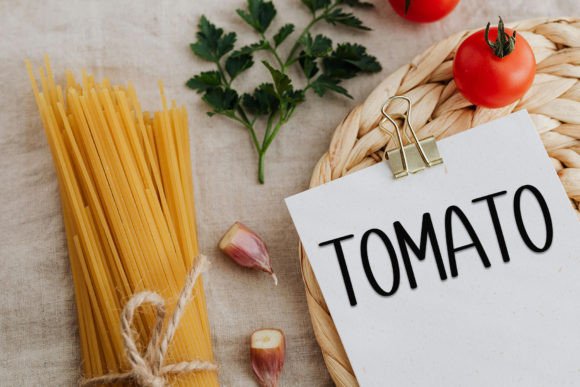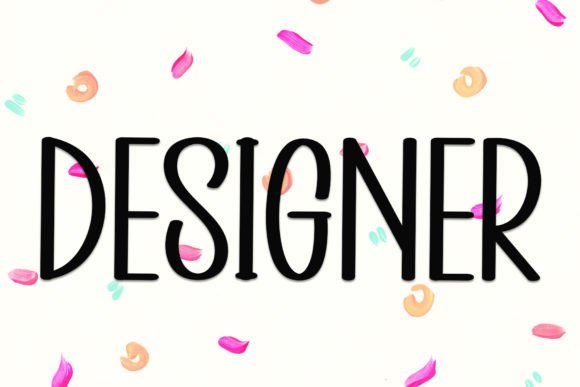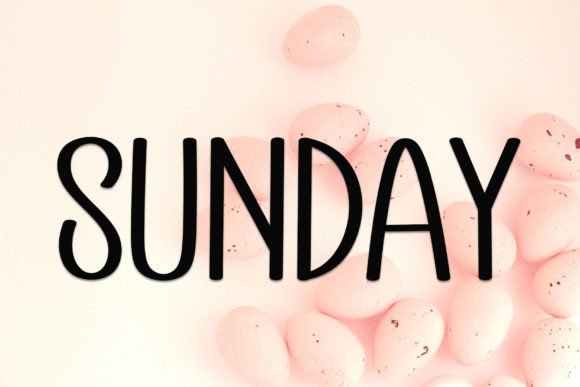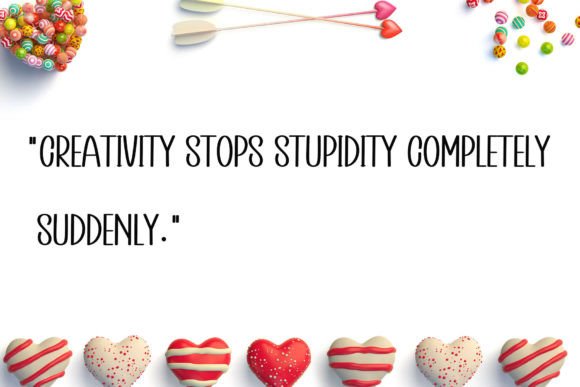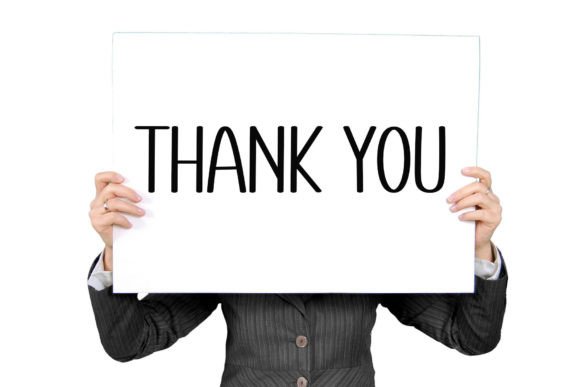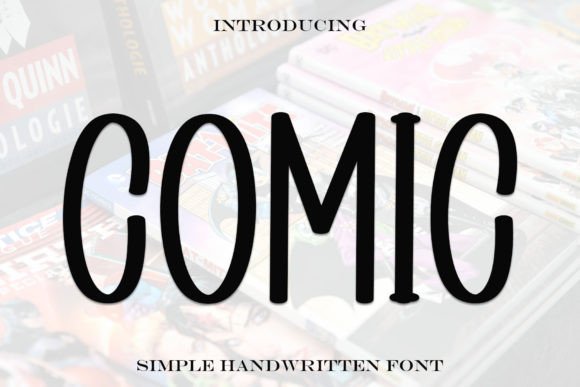
Introducing Comic Font: The Ultimate Holiday Typeface
Are you looking for a font that embodies the spirit of the holiday season? Do you want to add a touch of charm and nostalgia to your designs? Look no further than Comic Font, a festive and happy typeface that’s perfect for greeting cards, gift labels, and holiday-themed projects.
What is Comic Font?
Comic Font is a decorative typeface that’s designed to capture the magic of the holiday season. With its unique flair and decorative elements, this font is sure to bring a cheerful and nostalgic atmosphere to your words. Whether you’re a designer, crafter, or DIY enthusiast, Comic Font is the perfect addition to your font collection.
Key Features of Comic Font
- Festive and Happy Design: Comic Font is designed to evoke the spirit of the holiday season, with a playful and cheerful design that’s sure to put a smile on your face.
- Decorative Elements: This font features a range of decorative elements, including swashes, ligatures, and glyphs, that add a touch of charm and elegance to your designs.
- PUA Coded: Comic Font is PUA (Private Use Area) coded, which means you can access all the amazing glyphs and ligatures easily, without any hassle.
- Perfect for Holiday Projects: Whether you’re creating greeting cards, gift labels, or holiday-themed projects, Comic Font is the perfect choice.
Why Use Comic Font?
So why should you use Comic Font for your holiday projects? Here are just a few reasons:
- Adds a Touch of Charm: Comic Font adds a touch of charm and elegance to your designs, making them stand out from the crowd.
- Evokes a Sense of Nostalgia: This font is sure to evoke a sense of nostalgia and warmth, perfect for holiday projects that aim to capture the spirit of the season.
- Easy to Use: With its PUA coding, Comic Font is easy to use, even for those who are new to font design.
- Versatile: Comic Font can be used for a range of holiday projects, from greeting cards to gift labels, and more.